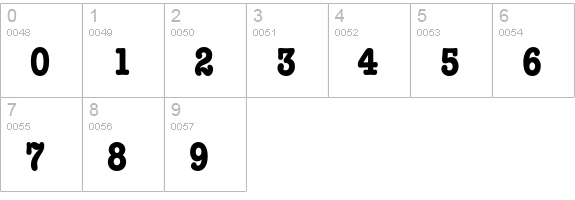
AmTypewriterEF-BoldCond Font Details
AmTypewriterEF-BoldCond is a modern and sleek condensed bold font that exudes sophistication and professionalism. With its clean lines and sharp edges, this font is perfect for creating attention-grabbing titles and headlines. Whether used in print or digital media, AmTypewriterEF-BoldCond commands attention and adds a touch of elegance to any design project. The best part about this font is that it is completely free to download at FontsMarket.com. This means that you can access this high-quality typeface without any cost, making it a valuable addition to your font library. Don't miss out on the opportunity to elevate your designs with the stylish and versatile AmTypewriterEF-BoldCond font - download it today and let your creativity shine!